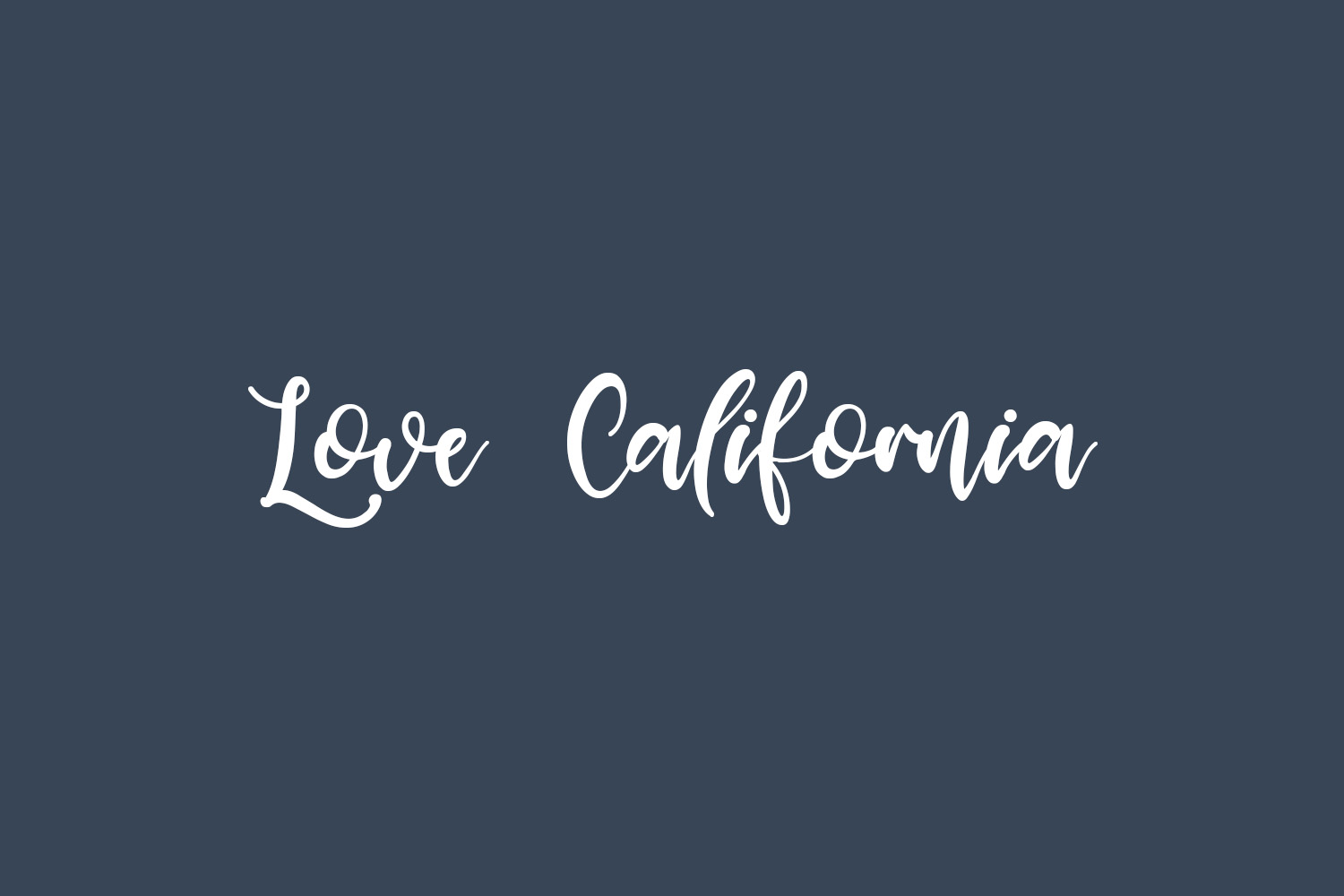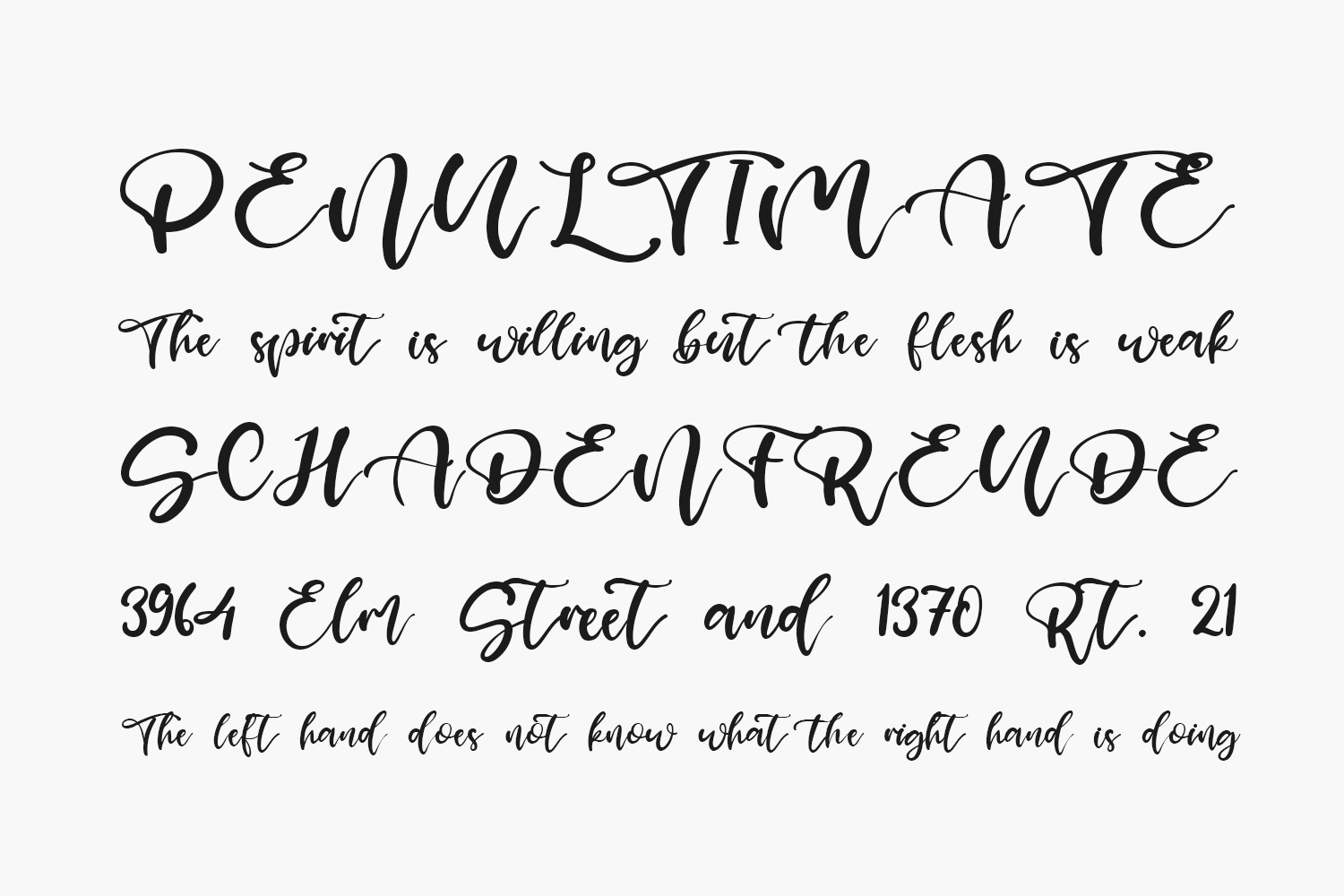
Love California Free Font presents itself as a vibrant and contemporary handwritten script font. Tailored for artisans and designers, it seamlessly aligns with applications like Photoshop and Silhouette Design Studio. Its inherent playfulness adds a charming dimension, ideal for fueling imaginative ventures. Love California Free Font is free for personal use only. Please purchase the full version for commercial use.